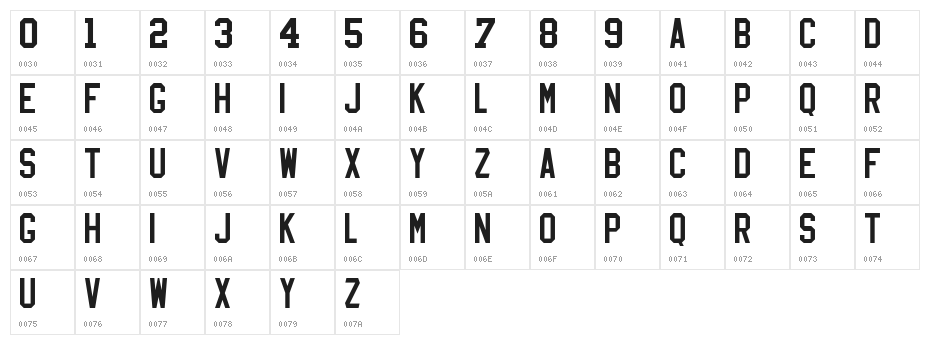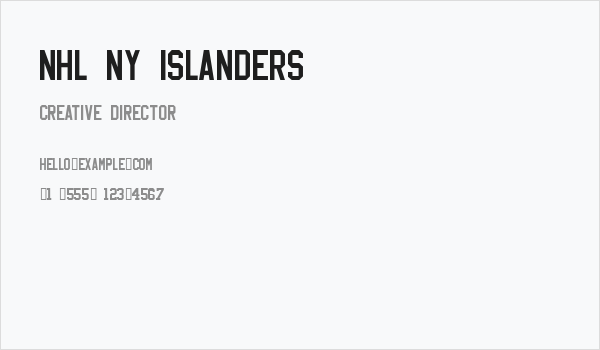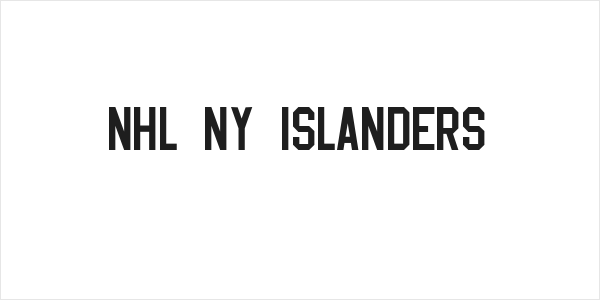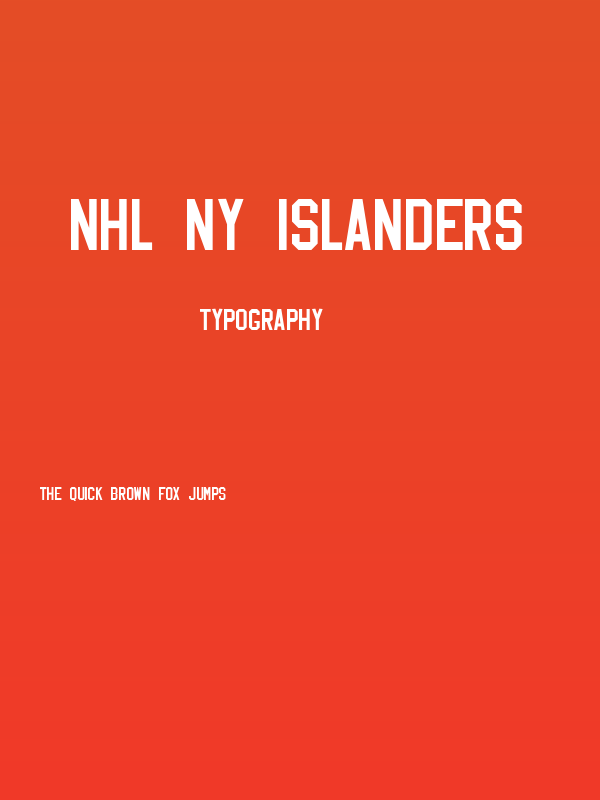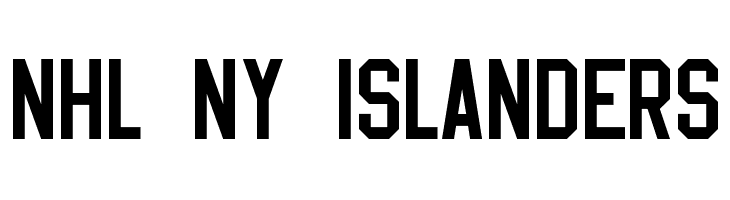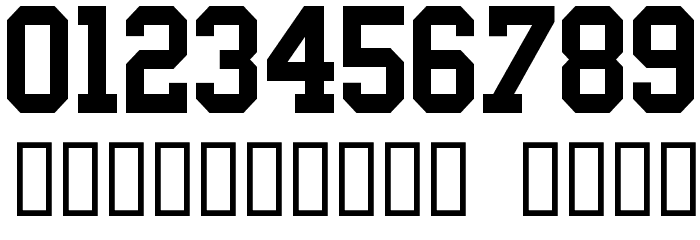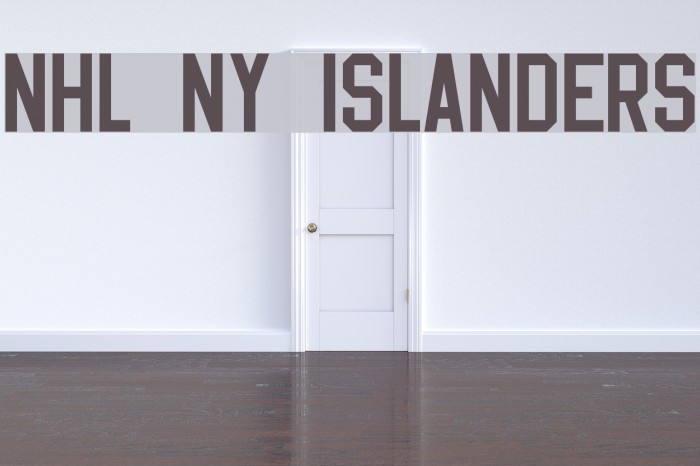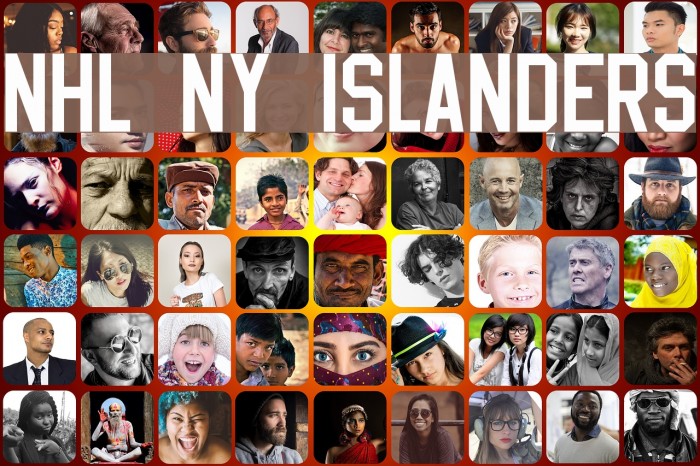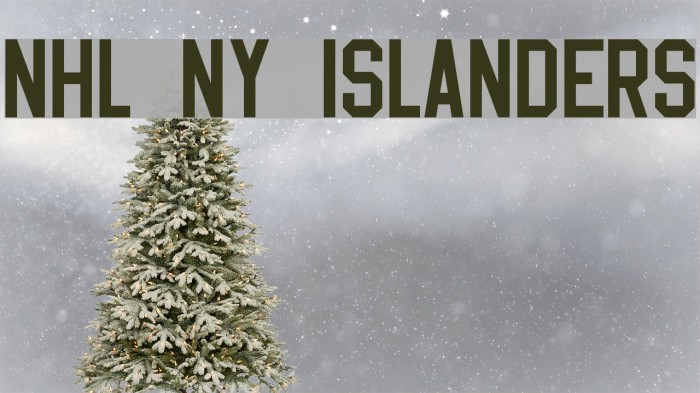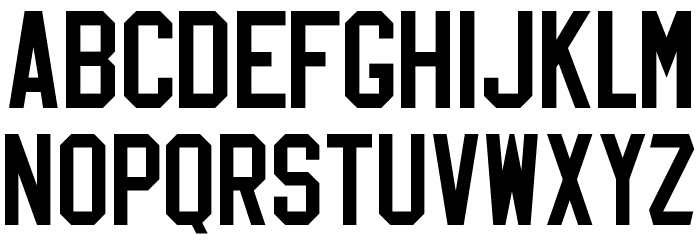
NHL NY Islanders Font
NHL NY Islanders Description
This font features bold, geometric letterforms with a strong, athletic aesthetic. The characters are blocky and angular, with a uniform stroke width that conveys a sense of strength and stability. The uppercase letters are particularly striking, with sharp edges and a commanding presence. The numerals follow the same design principles, ensuring consistency across all characters. This style is reminiscent of sports team branding, making it ideal for applications that require a bold and impactful visual identity.